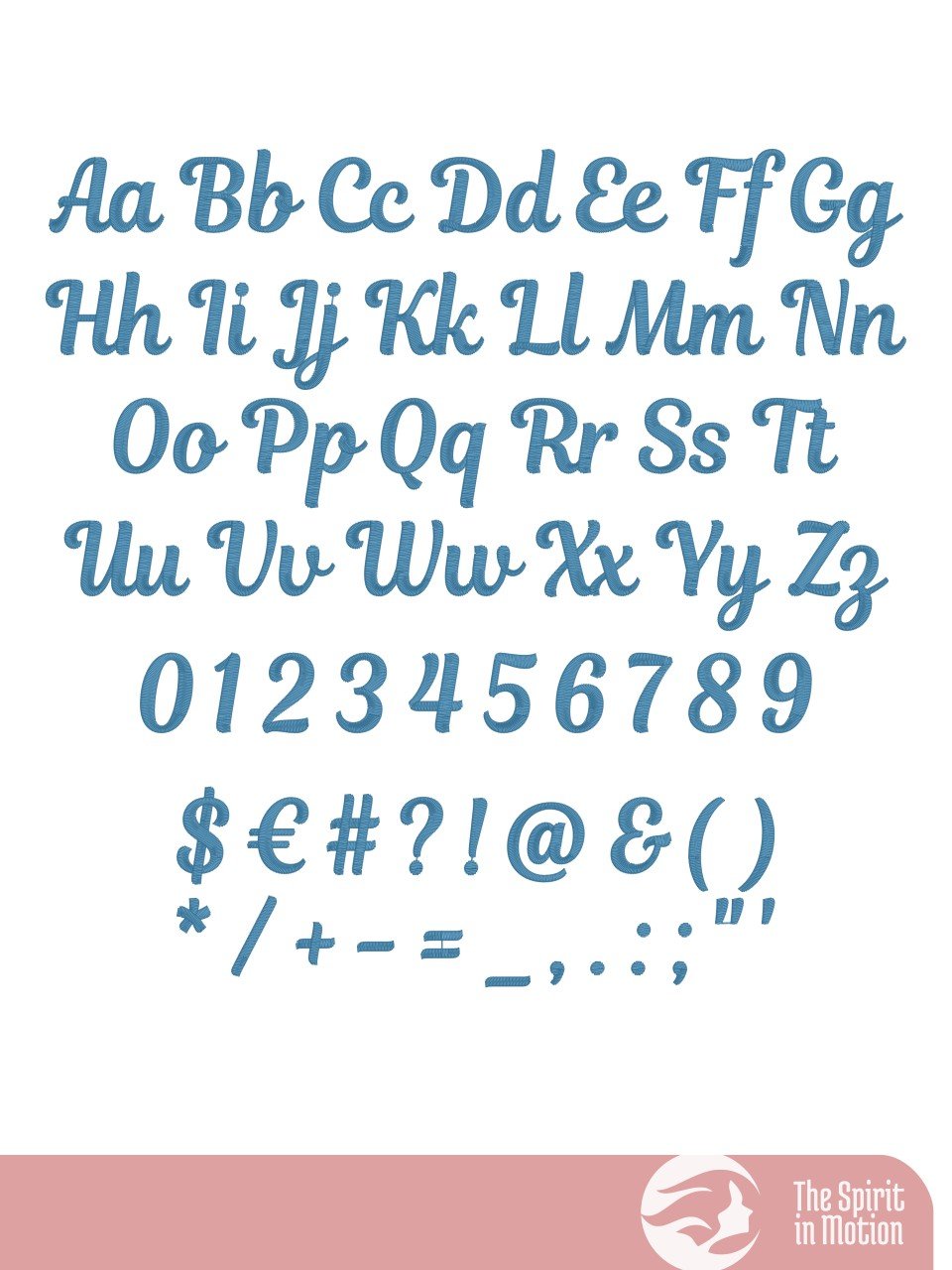
Magnolia Regular Script Embroidery Font
Magnolia Script is a graceful, flowing script embroidery font perfect for adding an elegant touch to your projects. With its smooth connections and soft curves, it’s ideal for names, monograms, wedding accents, baby items, and personalized gifts. Carefully digitized for clean stitch-outs and consistent results, this stylish font brings a modern calligraphy feel to machine embroidery.